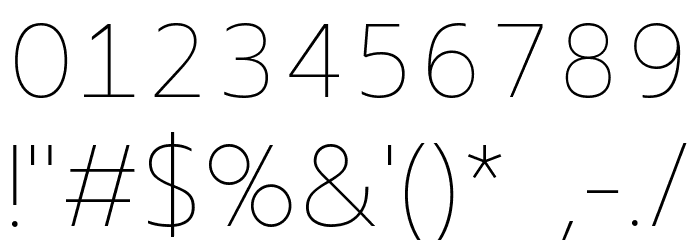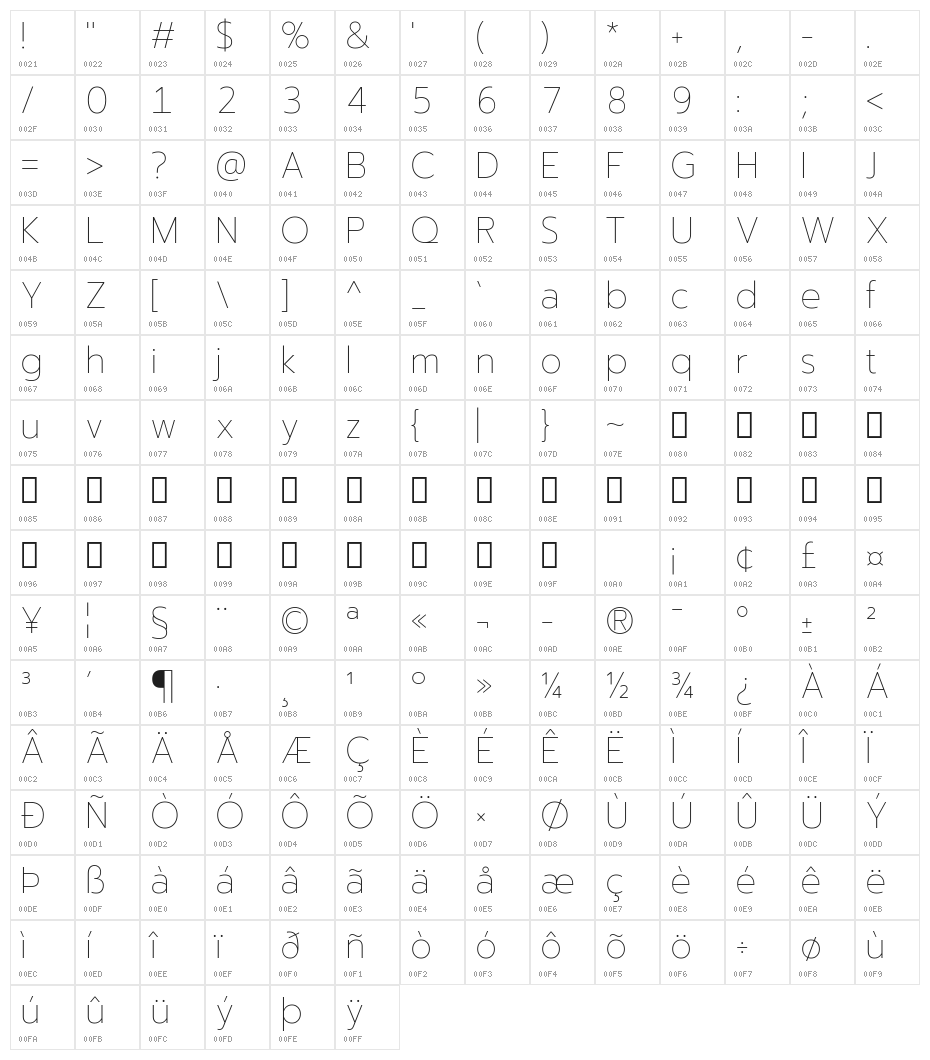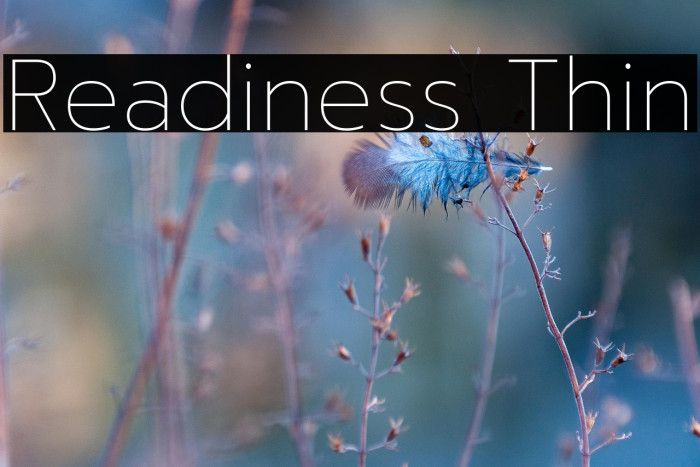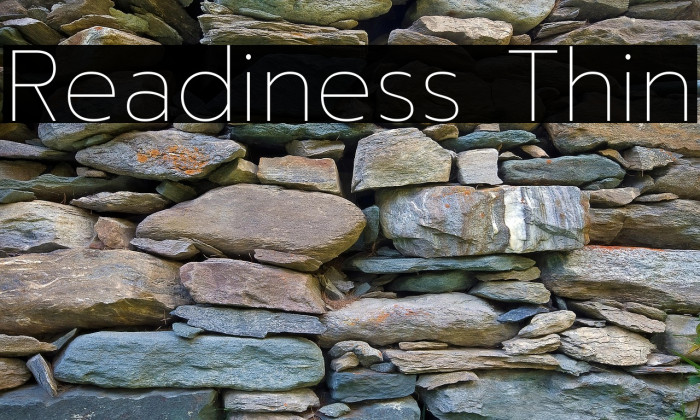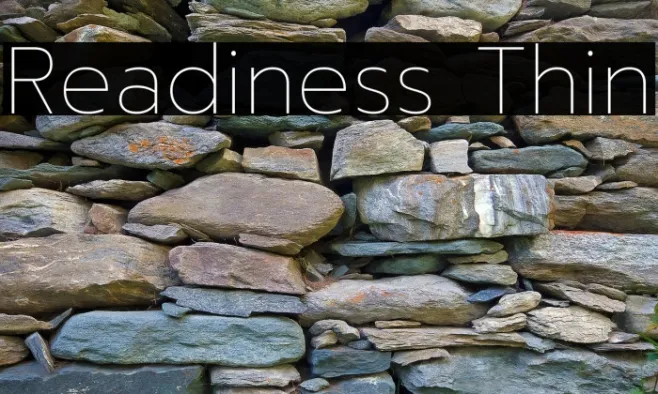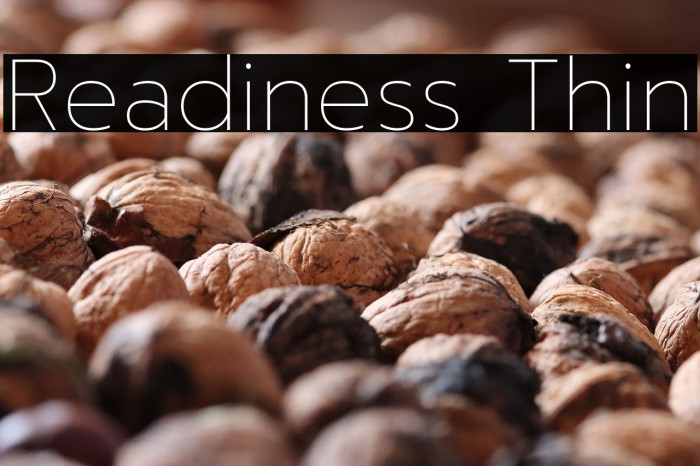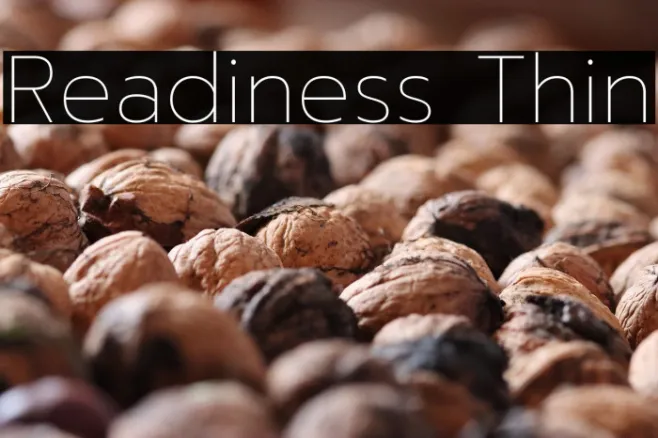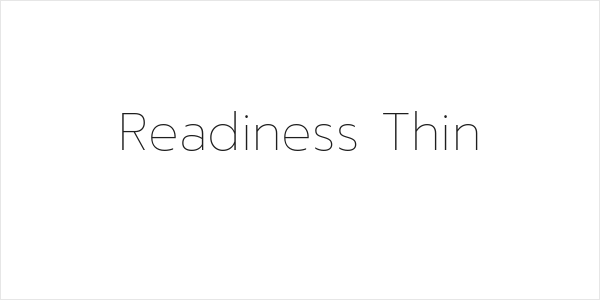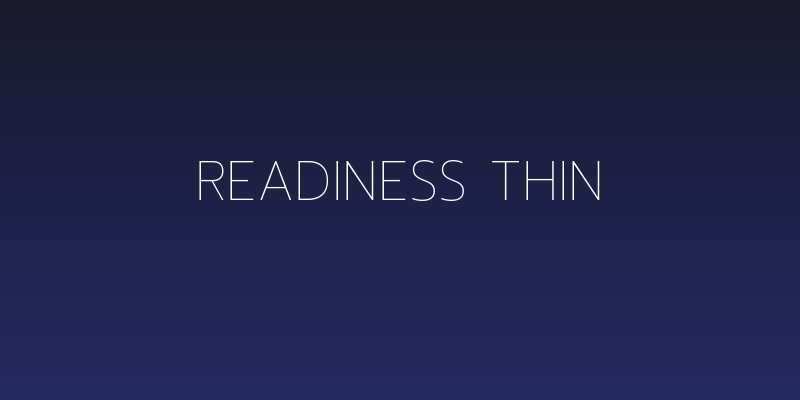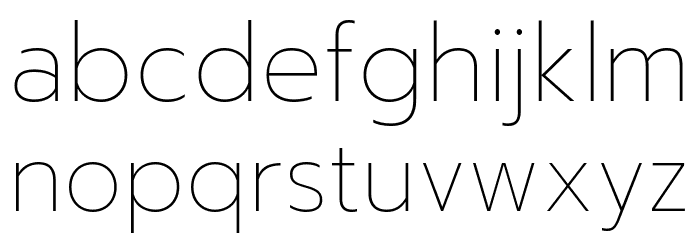
Readiness Thin Font
Readiness Thin Description
This font exhibits a clean and modern aesthetic with its thin, uniform strokes and minimalistic design. The characters are evenly spaced, providing a balanced and airy appearance. The uppercase and lowercase letters maintain a consistent height and width, contributing to a harmonious look. The numerals are straightforward and align well with the overall style, while the special characters are crafted to match the sleekness of the alphabet. This font is ideal for projects that require a contemporary and elegant touch, offering clarity and sophistication.
| Proposed Projects | Ideal for branding, minimalist designs, digital interfaces, and editorial layouts. |